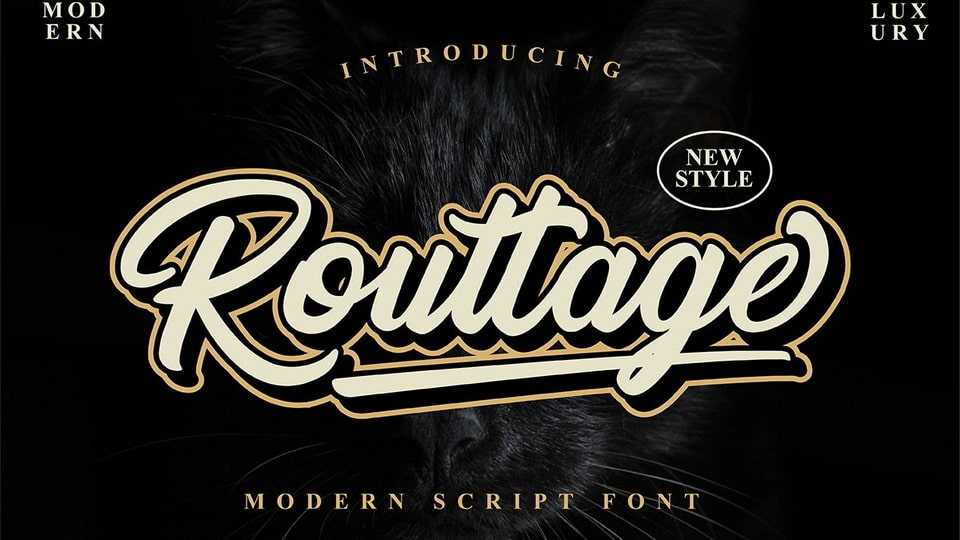
Download Routtage font, an elegant script with a contemporary atmosphere and impeccable form, inspired by timeless classic calligraphy. Routtage is suitable for branding, business cards, Christmas cards, branding, logos, product packaging, wedding invitations, decorations, t-shirts, poster labels etc.